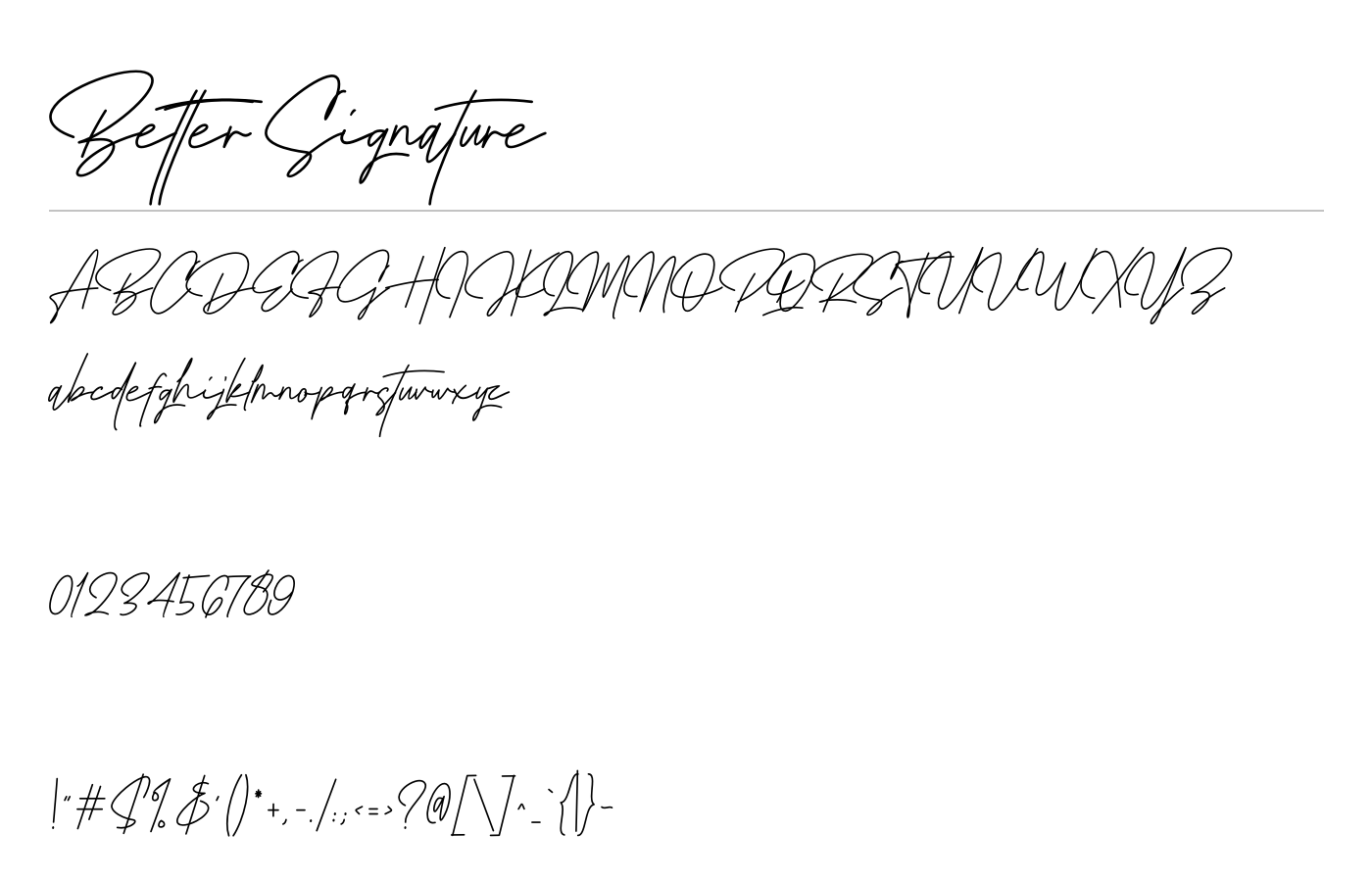
Better Signature Font is a delicate and elegant handwritten script that mimics a natural, flowing signature style. Its slim, slightly slanted letterforms with fine strokes and smooth connections create a personal, sophisticated feel perfect for branding, invitations, or logos needing a refined yet approachable touch. This font works especially well in projects that seek to convey authenticity, elegance, and a modern handwritten charm.
Better Signature Font
About Better Signature Font
| Font family | Better Signature Font |
| Designer | Riyadh Rahman |